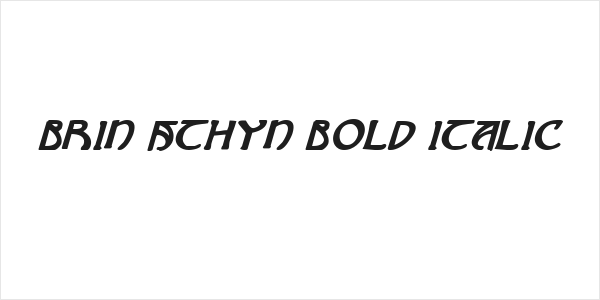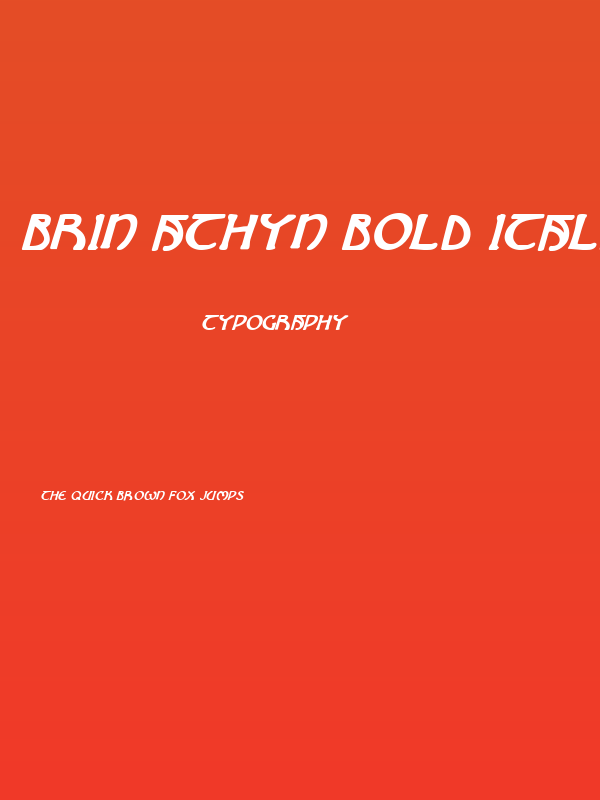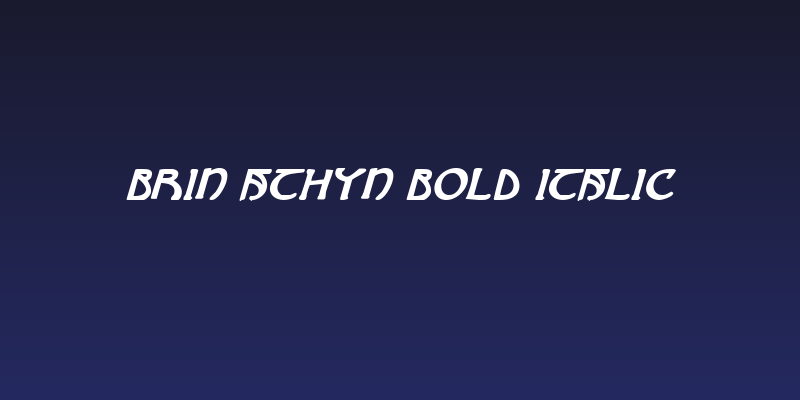
Brin Athyn Bold Italic Font
Brin Athyn Bold Italic Description
This font features a bold and italic style with a distinctive flair. The characters are slightly slanted, giving a dynamic and energetic appearance. The strokes are thick and consistent, providing a strong visual impact. The uppercase letters are particularly prominent, with unique curves and angles that add a decorative touch. The lowercase letters maintain the same boldness, ensuring readability while still being visually interesting. Numbers and special characters are equally bold, with a cohesive design that matches the alphabet. The overall style is modern with a hint of retro, making it suitable for eye-catching designs.
Proposed ProjectsIdeal for branding, posters, headlines, and any project requiring a bold statement.